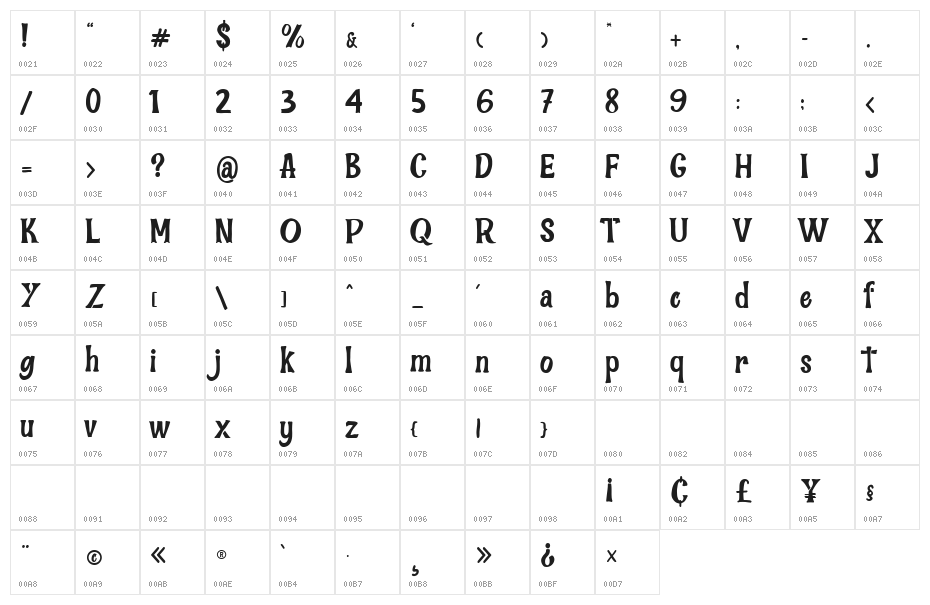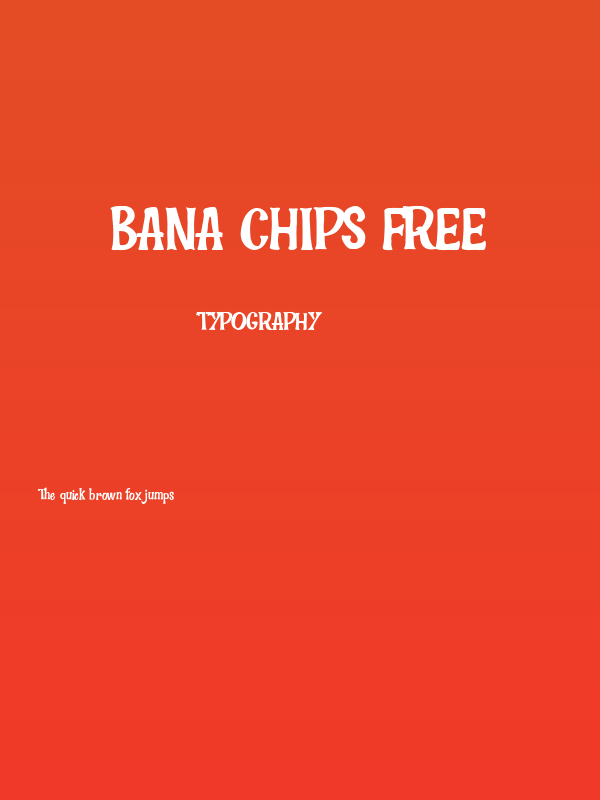
Bana Chips Free Font
Bana Chips Free Description
This font features a playful and bold design with a hand-drawn aesthetic. The characters are slightly irregular, giving them a whimsical and informal appearance. The strokes are thick and rounded, contributing to a friendly and approachable look. The uppercase and lowercase letters maintain a consistent style, with unique flourishes on certain characters like 'g' and 'y'. The numbers and special characters are equally bold and match the overall style, making them suitable for creative and casual applications.
| Proposed Projects | Ideal for children's books, playful branding, greeting cards, and casual event posters. |